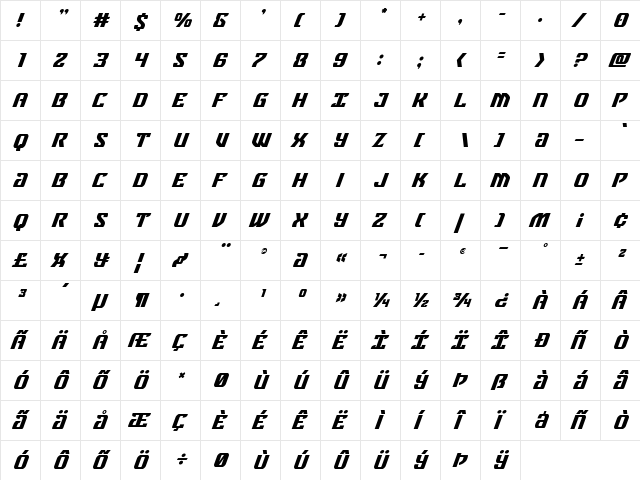
Federal Blue Super-Italic Italic
Design Context for Federal Blue Super-Italic Typeface
Federal Blue Super-Italic is a composed and adaptable typeface that performs quietly and consistently across a wide range of design contexts. The slanted form adds forward momentum and visual energy.